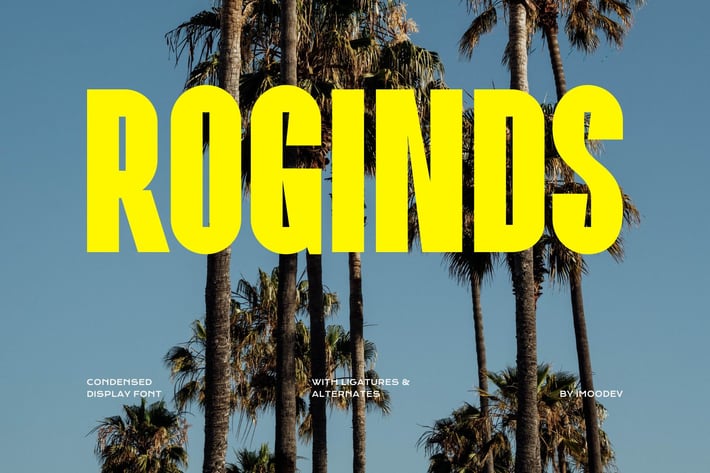
Roginds - Modern Bold Fonts
Roginds is modern bold fonts with visual elegance, smooth curves, and beautiful ligatures clear, making your work look true and attractive.
A versatile font that works in both large and small sizes. This font is suitable for a wide variety of projects such as logos, invitations, branding, magazine, photography, card, product packaging, product mockup, mugs, quotes, posters, labels, signatures, editorial, wedding designs, and much more.
A font that is perfect for all business sectors including personal projects, studio, corporate, creative agency, industrial, company, etc.